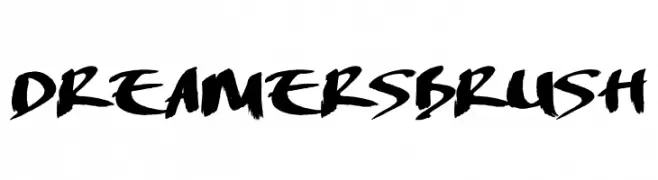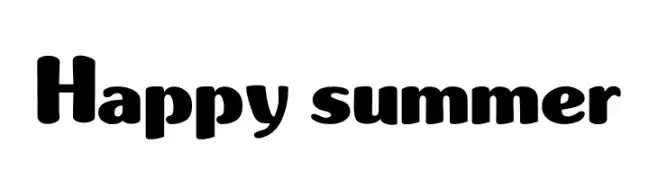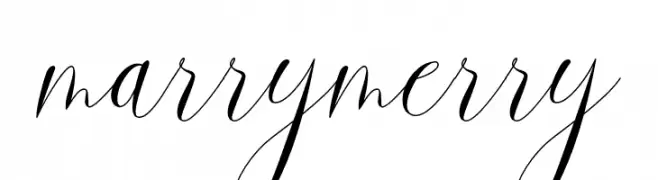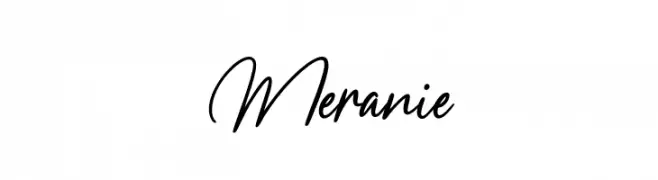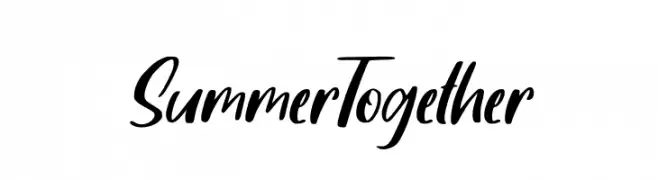
A decorative and bold font with intricate uppercase and strong lowercase characters.
A lively, cursive script font with dynamic contrast and flowing strokes.
An elegant, cursive handwritten font with smooth, flowing strokes.
A bold, dynamic brush-style font with expressive, handcrafted strokes.
A bold, brush-style font with dynamic, hand-painted strokes.
A playful, handwritten font with a casual and creative style.
A playful, bold font with rounded edges and a friendly appearance.
A bold, blocky font with strong geometric shapes, ideal for impactful designs.
A graceful script font with flowing, interconnected letters and a sophisticated style.
An elegant, high-contrast script font with flowing, cursive characters.